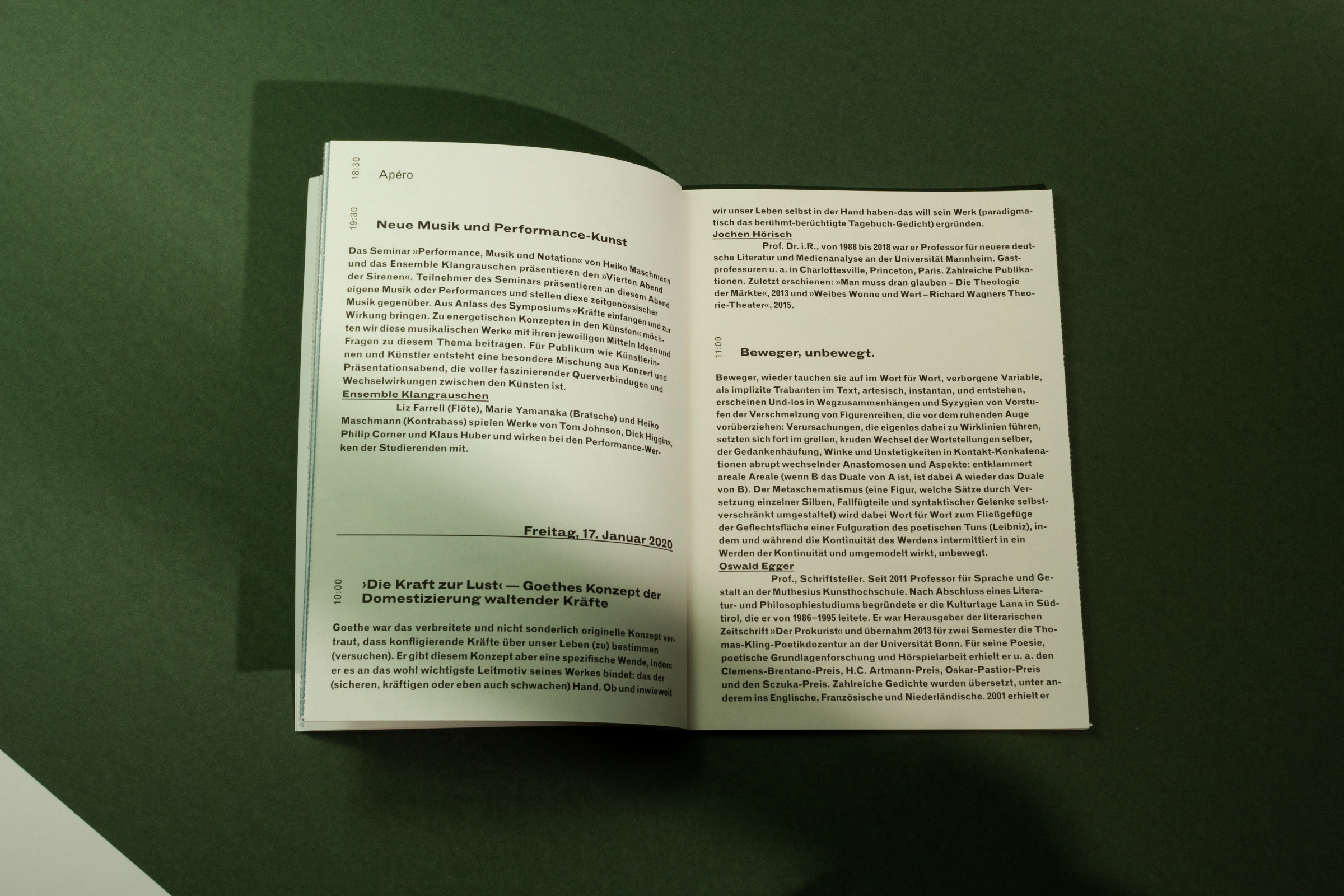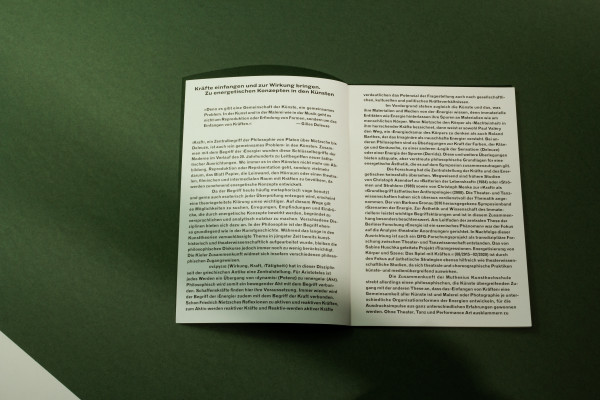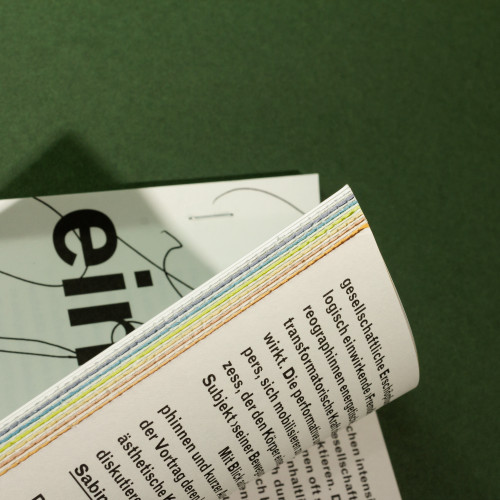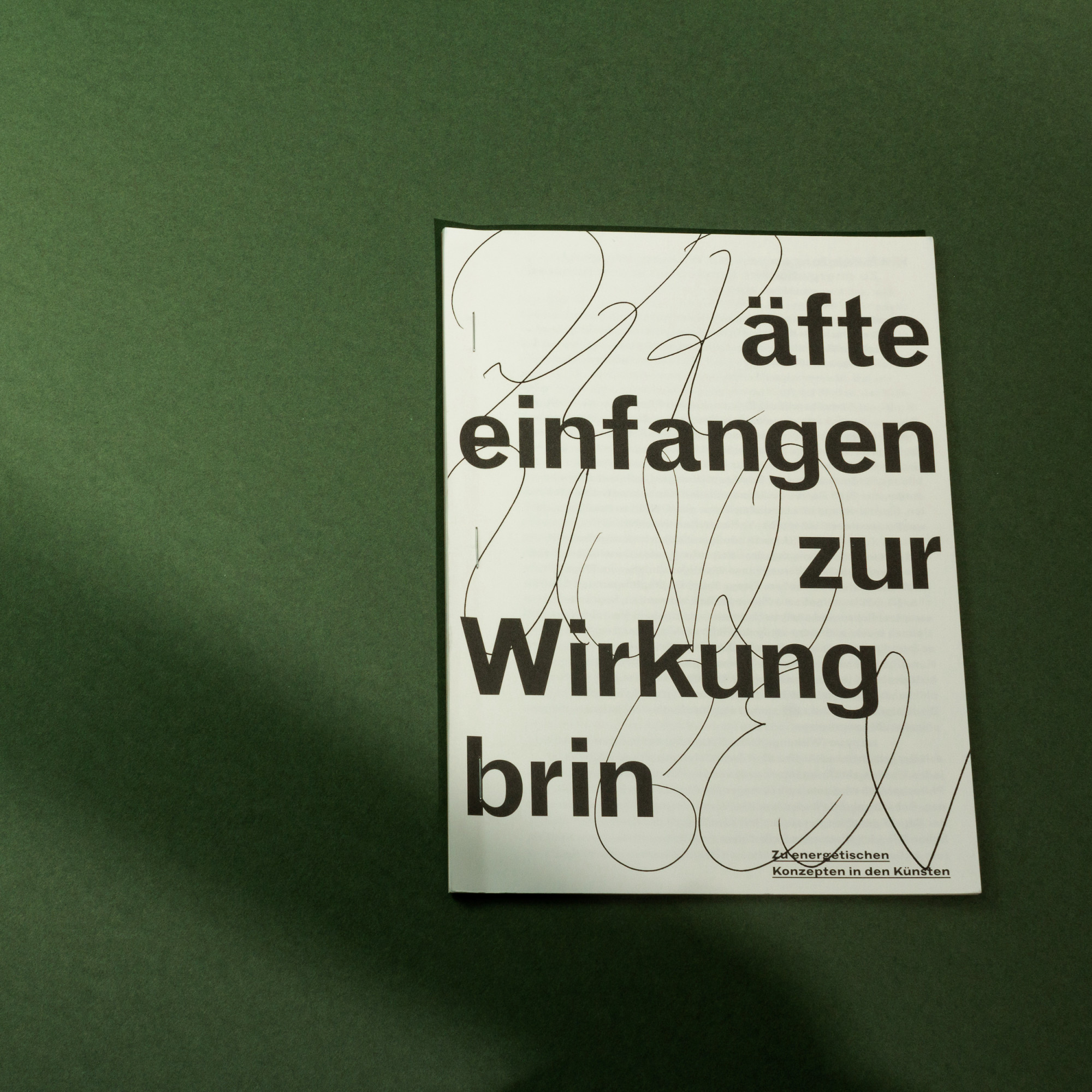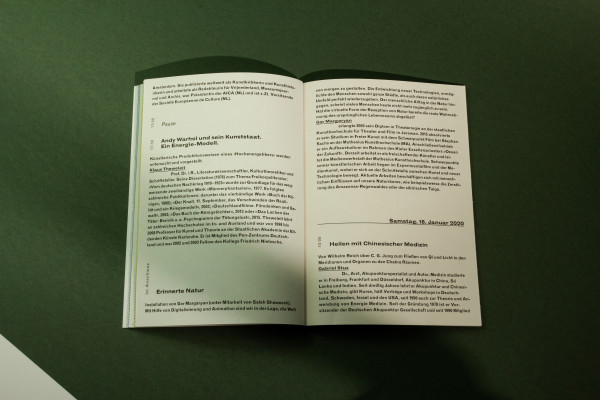
Kräfte Einfangen und zur Wirkung bringen
Kräfte einfangen und zur Wirkung bringen was a symposium at the Muthesius University of Fine Arts Kiel. It deals with energetic concepts in the arts. The booklet is a visual approach to this theme: A color gradient runs through the entire booklet; the pages are perforated so that they can only be opened and read through an energetic process. The typographic cover design is composed of a heavy, dark MT Grotesk combined with a sweeping handwriting.
Typeface: MT Grotesque by Monotype